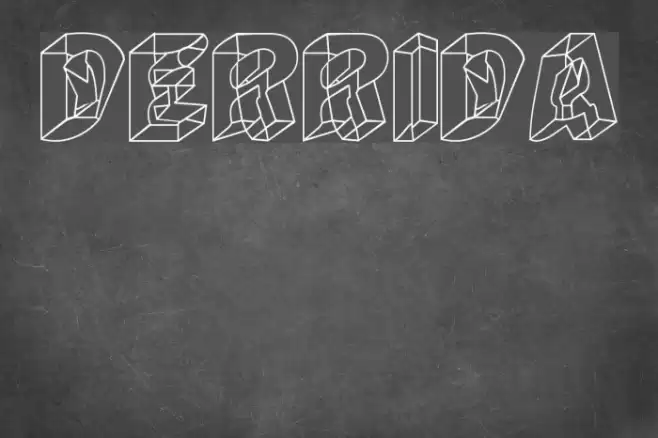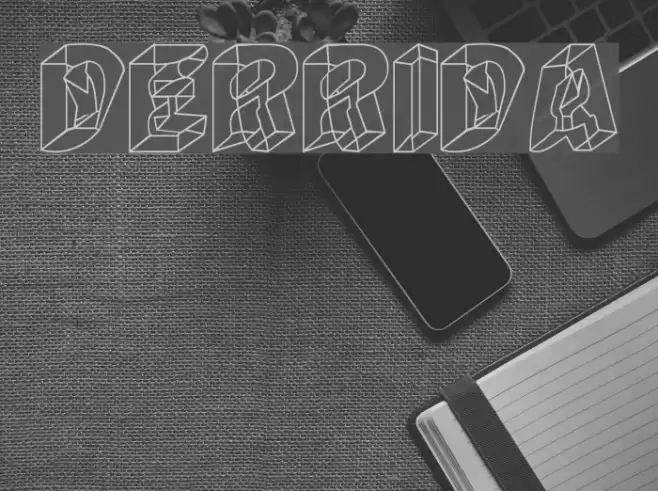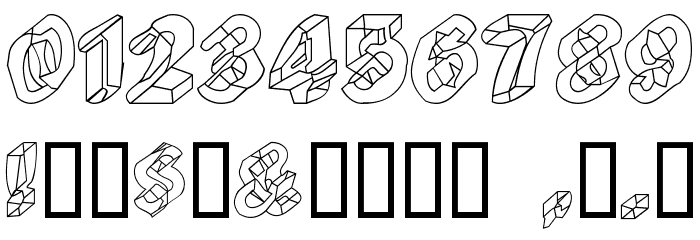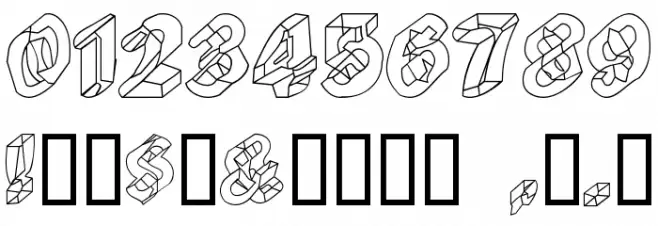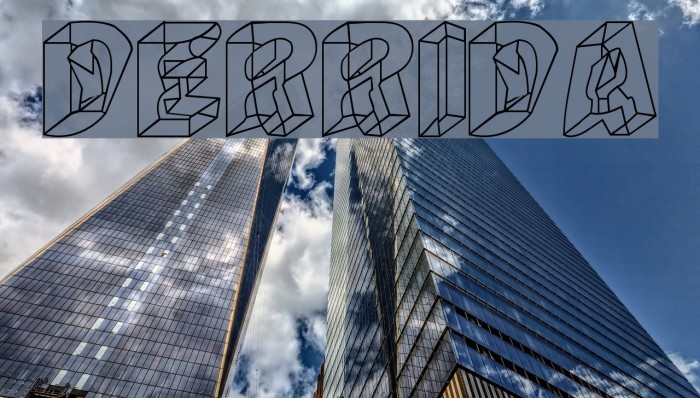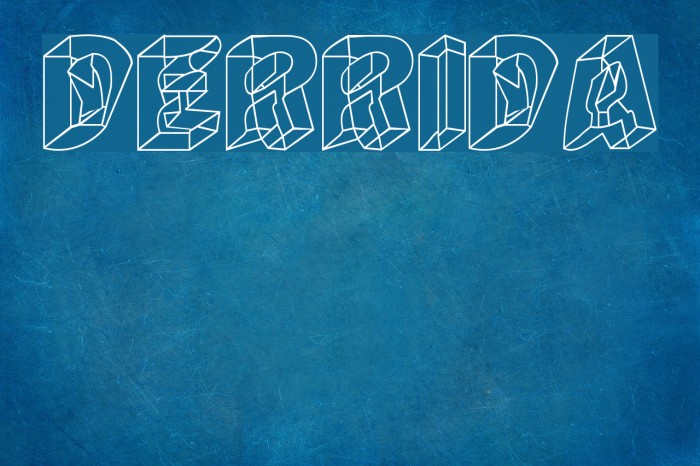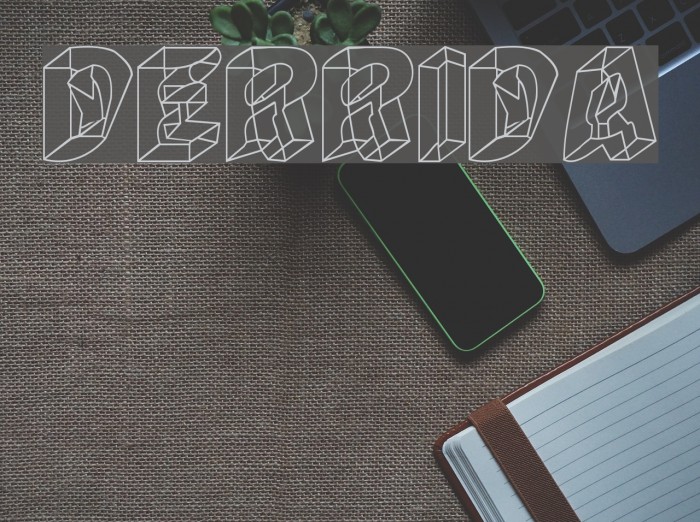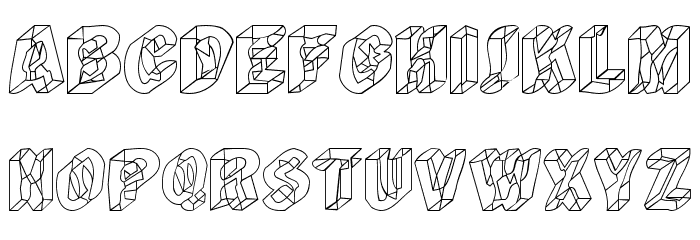
Derrida Font
Derrida Description
This font features a bold, three-dimensional design with intricate geometric patterns. Each character is composed of overlapping lines and shapes, creating a sense of depth and complexity. The letters and numbers have a consistent structure, with angular edges and a modern, abstract aesthetic. The special characters maintain the same style, ensuring a cohesive look across all elements. This font stands out with its unique, artistic flair, making it suitable for eye-catching designs.
A bold, geometric 3D font with intricate patterns and a modern aesthetic.
- Proposed Projects: Ideal for posters, album covers, branding projects, and any design requiring a striking visual impact.